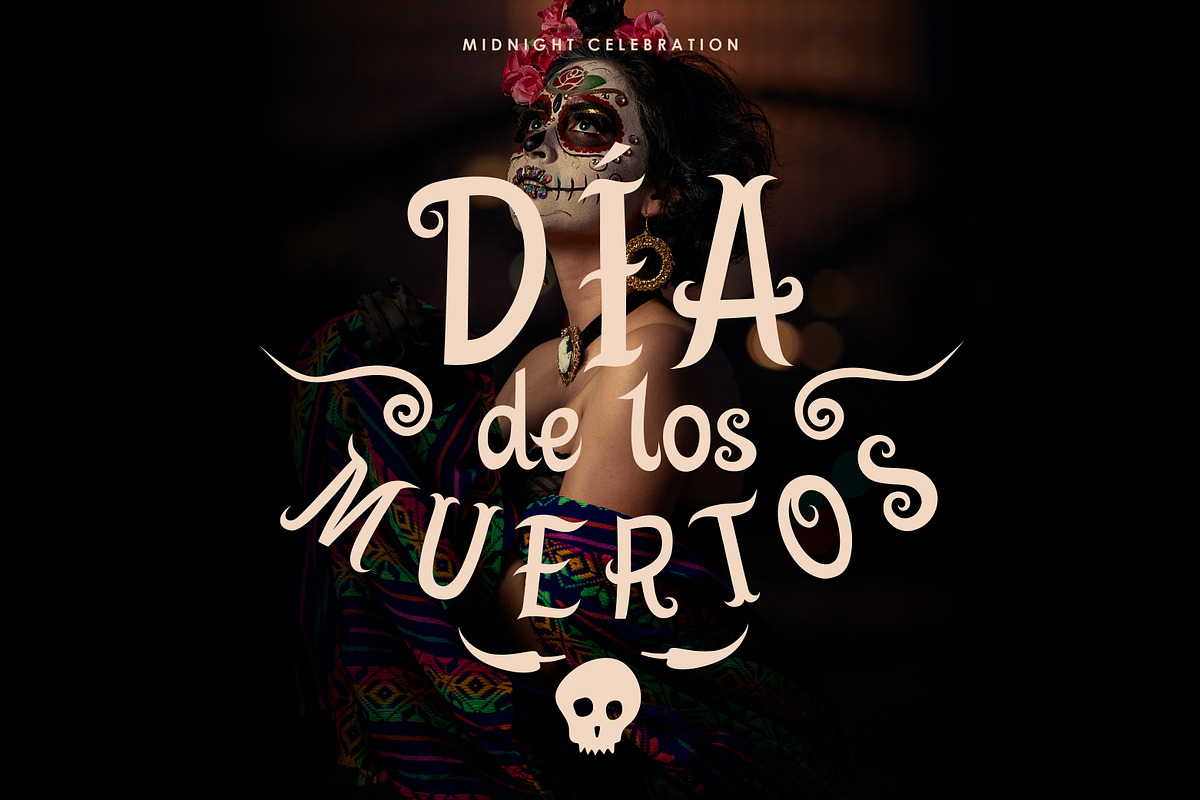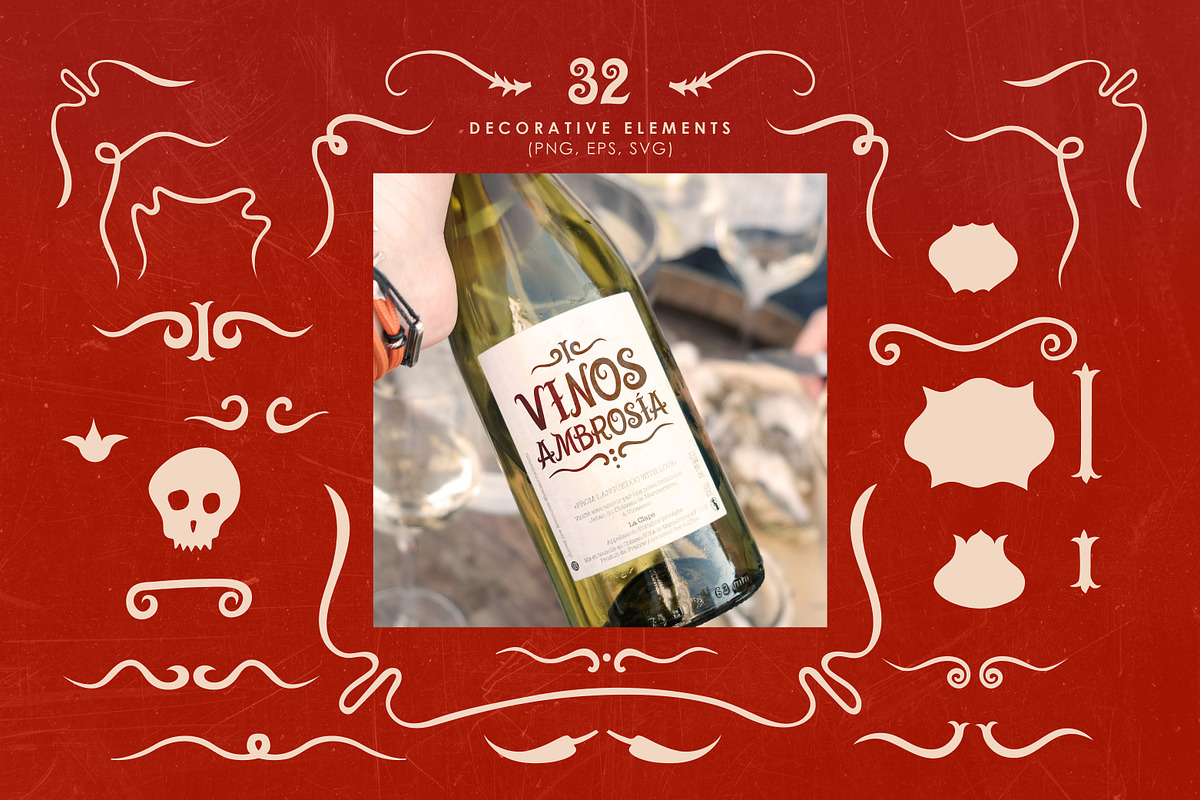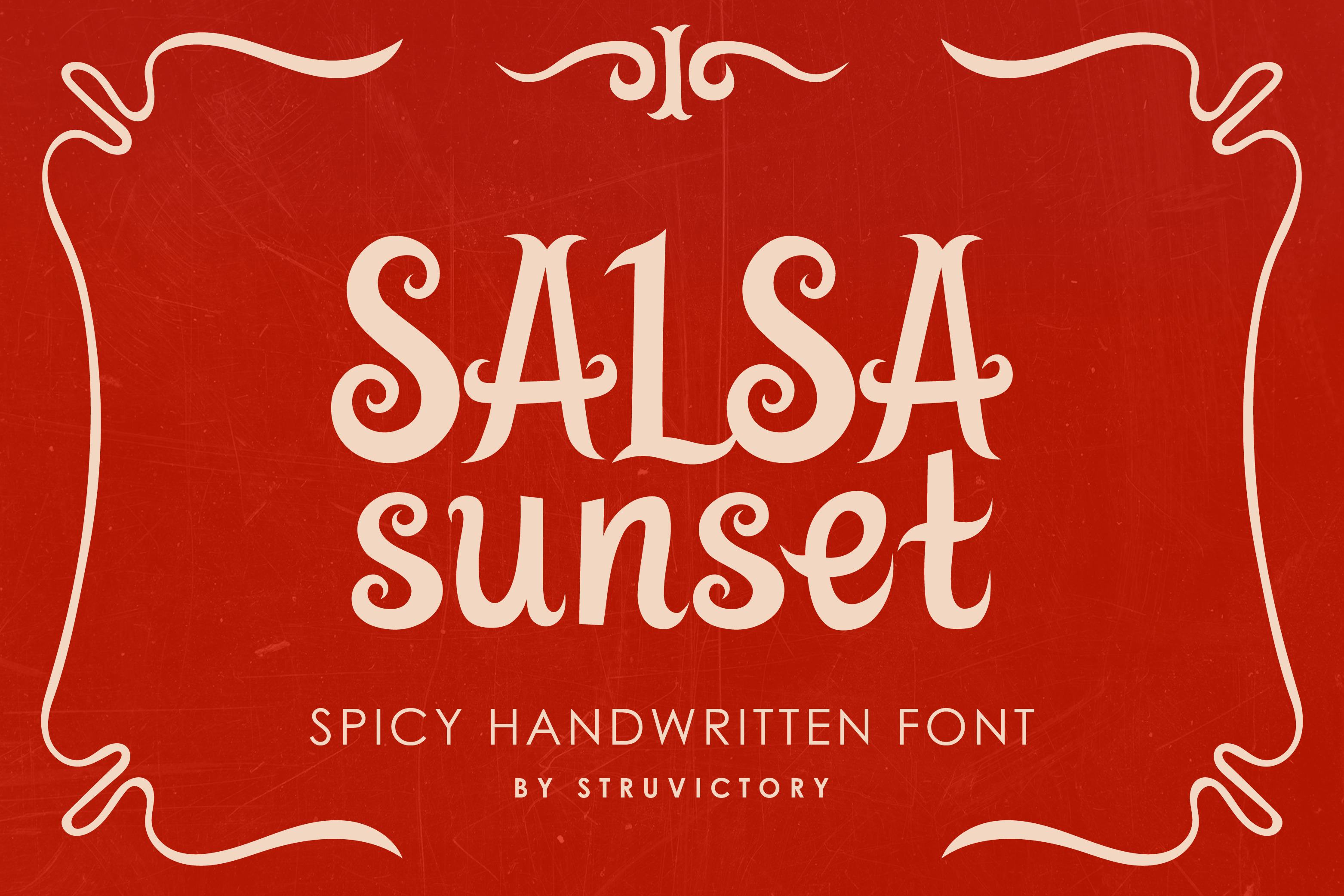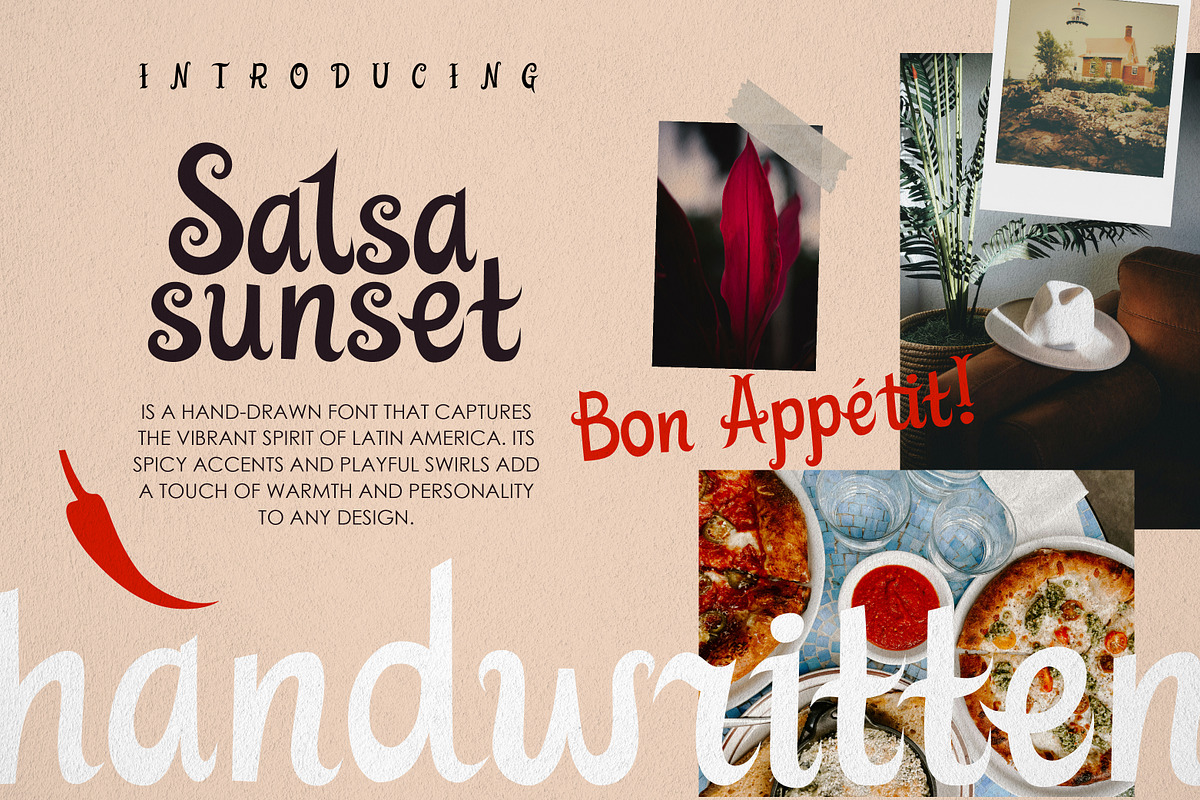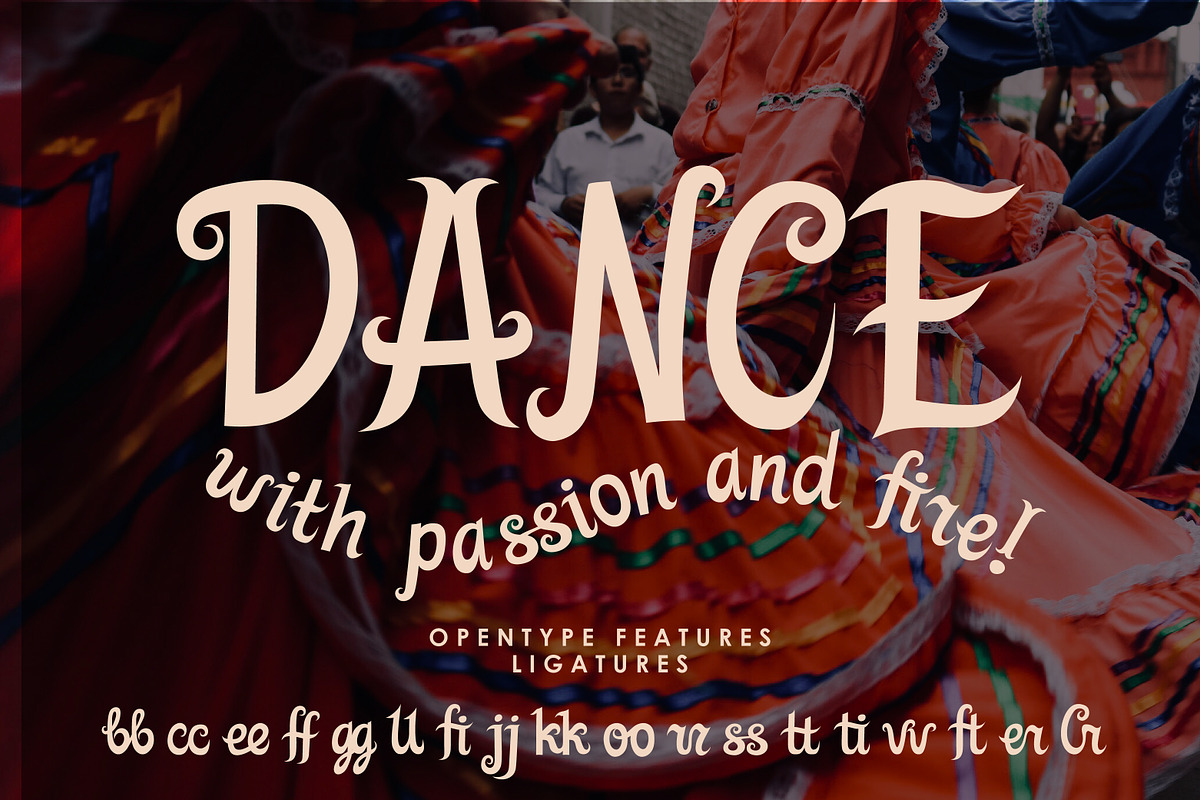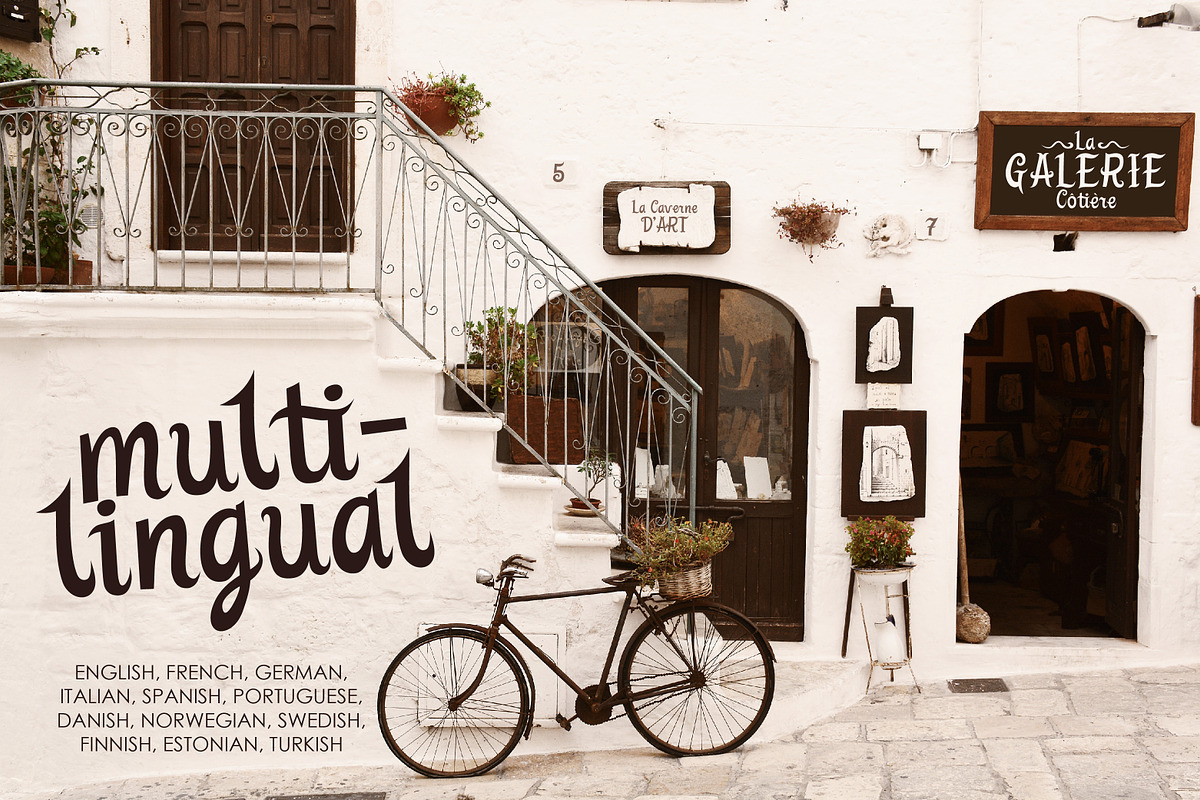
Salsa Sunset Handwritten Spicy Font
Salsa Sunset is a hand-drawn font that captures the vibrant spirit of Latin America. Its spicy accents and playful swirls add a touch of warmth and personality to any design. Whether you're creating a menu for a lively restaurant, a poster for Día de Muertos, or a sign for your favorite café, Salsa Sunset is the perfect choice to bring your vision to life. With its wide language support and included ligatures, you can create a truly unique and engaging design. And with its collection of hand-drawn flourishes, borders, and corners, Salsa Sunset is more than just a font – it's a complete design system that will help you create stunning visuals that stand out from the crowd.